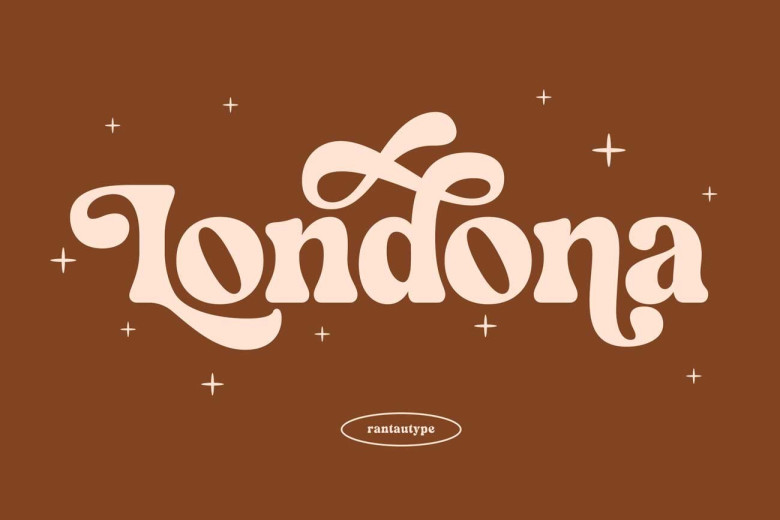
Londona Font
Londona is a serif font that exudes retro charm. The thick curves give off an impression of 70s style while serifs bring back its traditional appearance. Perfect for nostalgic mood boards or vintage branding projects.
Londona comes equipped with distinctive uppercase and lowercase characters as well as numbers, punctuation marks and punctuation marks, Laurasia provides additional alternatives and ligature so that you can create your own distinctive style using more.
Londona can also be combined with italic for an added nostalgic effect; to alternate uppercase letters numerals punctuation marks and punctuation marks for vintage branding projects (see preview image for complete Character Map).
Londona Serif Font